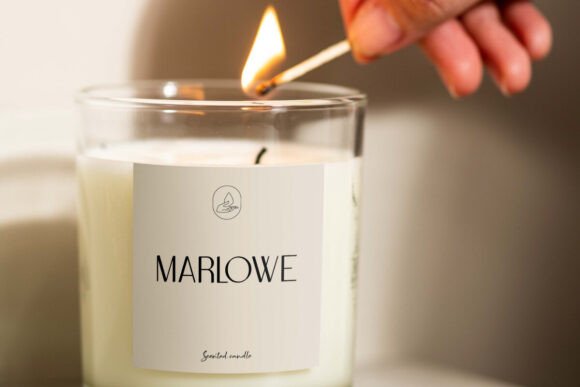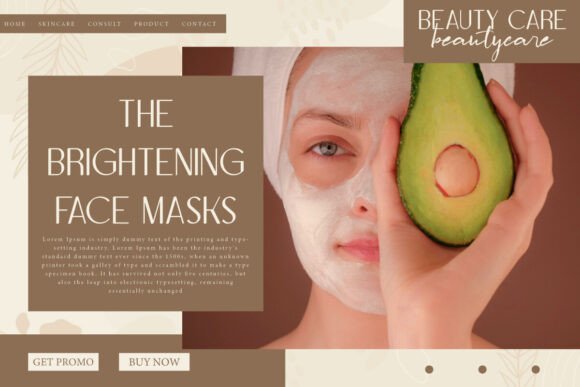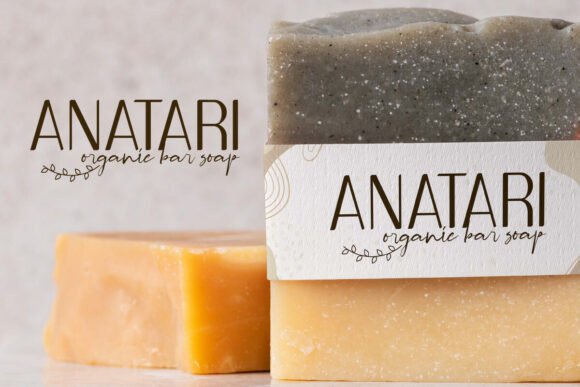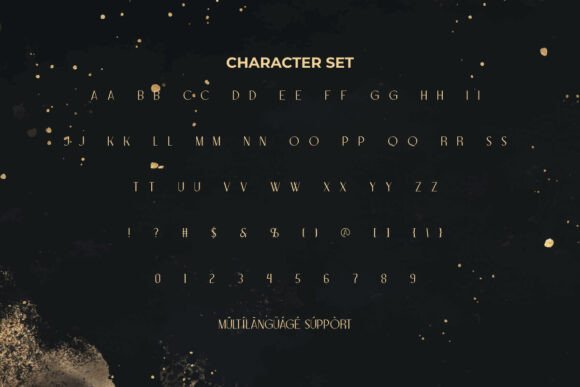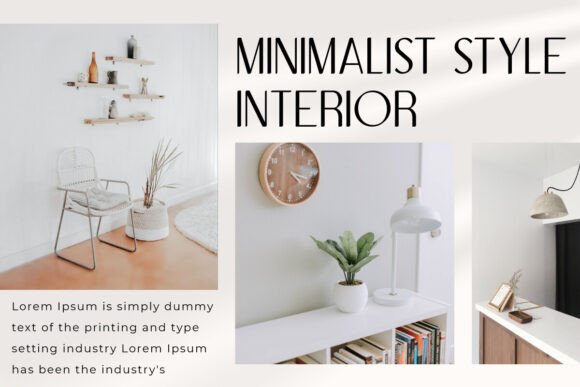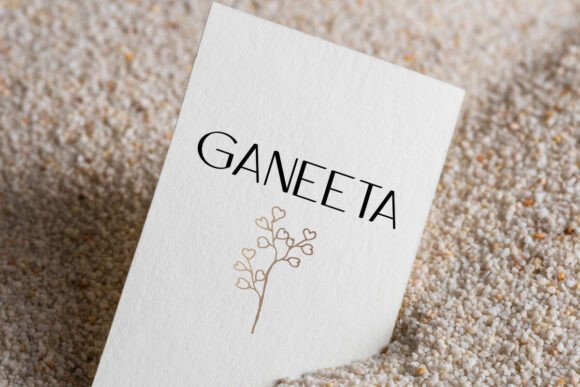
Introducing Bob Gerry Font: Elevate Your Designs with Elegance and Sophistication
In the world of design, typography plays a crucial role in conveying the tone and aesthetic of a brand or project. For designers and crafters seeking a font that exudes elegance, modernity, and versatility, Bob Gerry Font is an exceptional choice. This stunning sans serif display font is crafted to bring a clean, classy appearance to any design, making it a coveted asset for a wide range of creative endeavors.
The Essence of Bob Gerry Font
Bob Gerry Font stands out with its sleek, modern feel, perfectly balancing elegance with approachability. Its sans serif design ensures a clean and streamlined look, which is both visually appealing and highly legible. This font is meticulously designed to enhance the sophistication of any project, from branding and advertising to digital content and print materials.
One of the key advantages of Bob Gerry Font is its incredible versatility. Its universal appeal makes it suitable for a myriad of businesses and industries, including:
• Accessories
• Beauty products
• Cafes and restaurants
• Fashion and apparel
• Entertainment and events
• Event organizing
• Photography and printing
• Publishing and writing
• Spa and wellness
• And many more!
Whether you’re working on a luxury brand campaign, creating inviting signage for a trendy cafe, or designing captivating editorial content, Bob Gerry Font is poised to elevate your project with its refined charm.
Why Choose Bob Gerry Font?
Here are several compelling reasons why Bob Gerry Font should be your go-to choice for your next design project:
• Elegant and Modern: It adds a touch of sophistication and contemporary flair to any design.
• Clean Appearance: Ensures clarity and legibility, making it perfect for both digital and print media.
• Versatile: Can be used across various industries and design applications.
• Classy: Elevates the overall look of your designs, making them stand out.
• Easy to Read: Its clear and simple design ensures that your message is communicated effectively.
Tips for Using Bob Gerry Font
To maximize the impact of Bob Gerry Font in your designs, consider the following tips:
• Pair with Contrasting Fonts: Combine Bob Gerry Font with complementary fonts to create visual interest and hierarchy in your designs.
• Experiment with Sizes: Play with different font sizes to emphasize key messages and create a dynamic layout.
• Utilize White Space: Allow Bob Gerry Font to shine by giving it ample space, ensuring your design doesn’t feel cluttered.
• Color Matters: Choose colors that align with your brand’s palette or the mood you wish to convey, enhancing the font’s elegance.
Font Name Bob Gerry Font
Author EdricStudio
Bob Gerry Font is more than just a typeface; it’s a design statement that speaks of elegance, modernity, and sophistication. Its versatility and clean appearance make it an invaluable asset for designers and crafters aiming to create stunning, classy designs across a multitude of industries. Whether you’re embarking on a branding project, crafting editorial content, or designing marketing materials, Bob Gerry Font is poised to elevate your creative endeavors to new heights of visual excellence.
Embrace the elegance of Bob Gerry Font in your next project and discover the transformative power of typography in design.